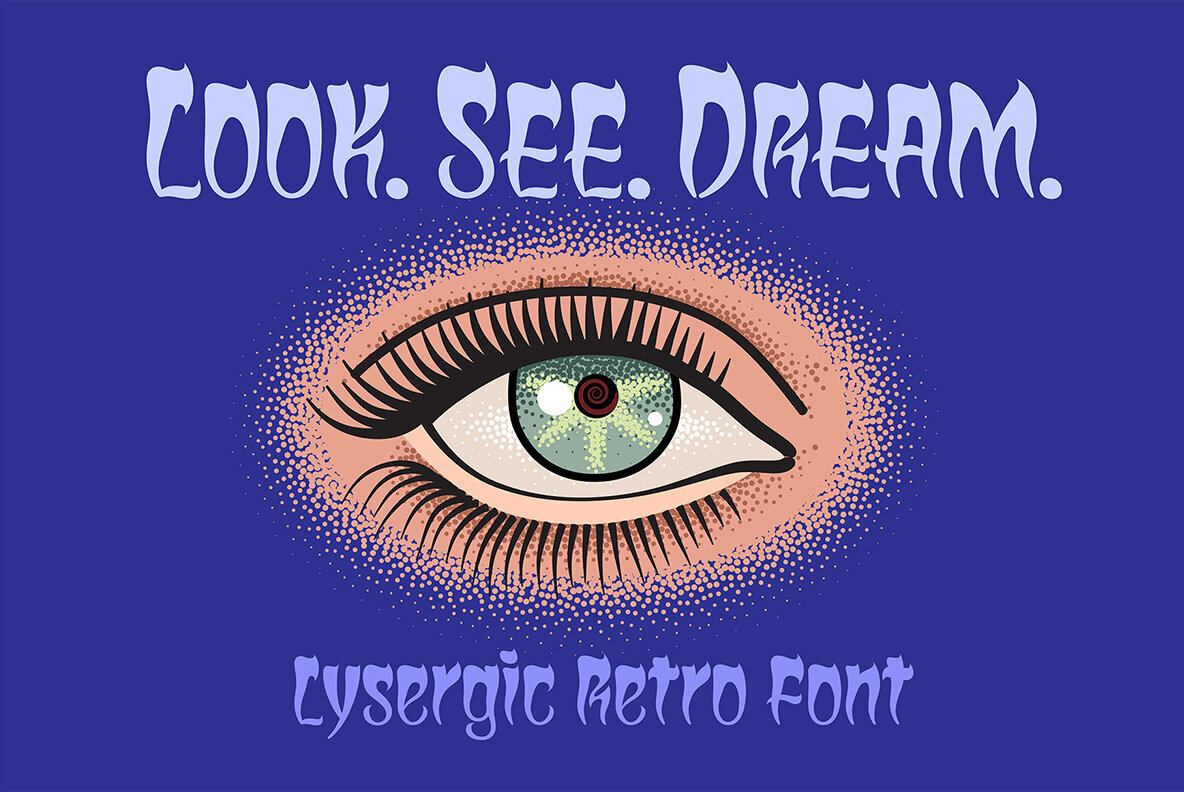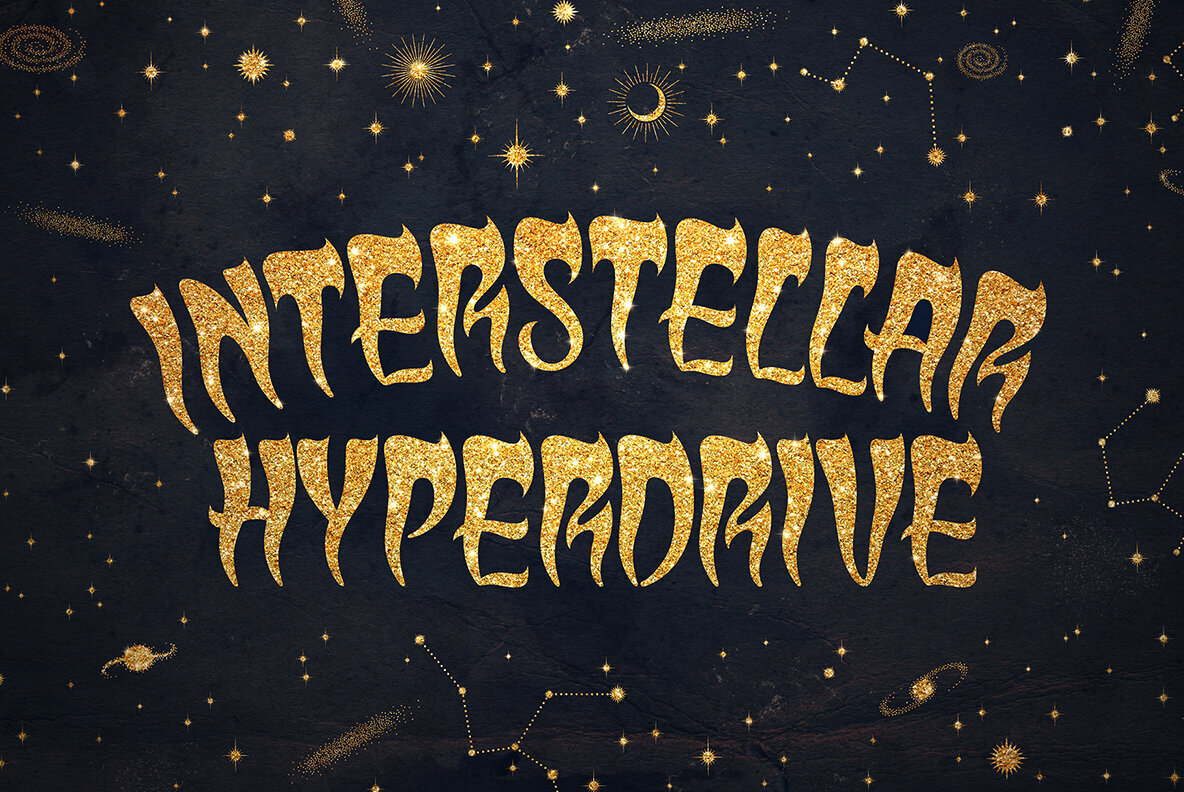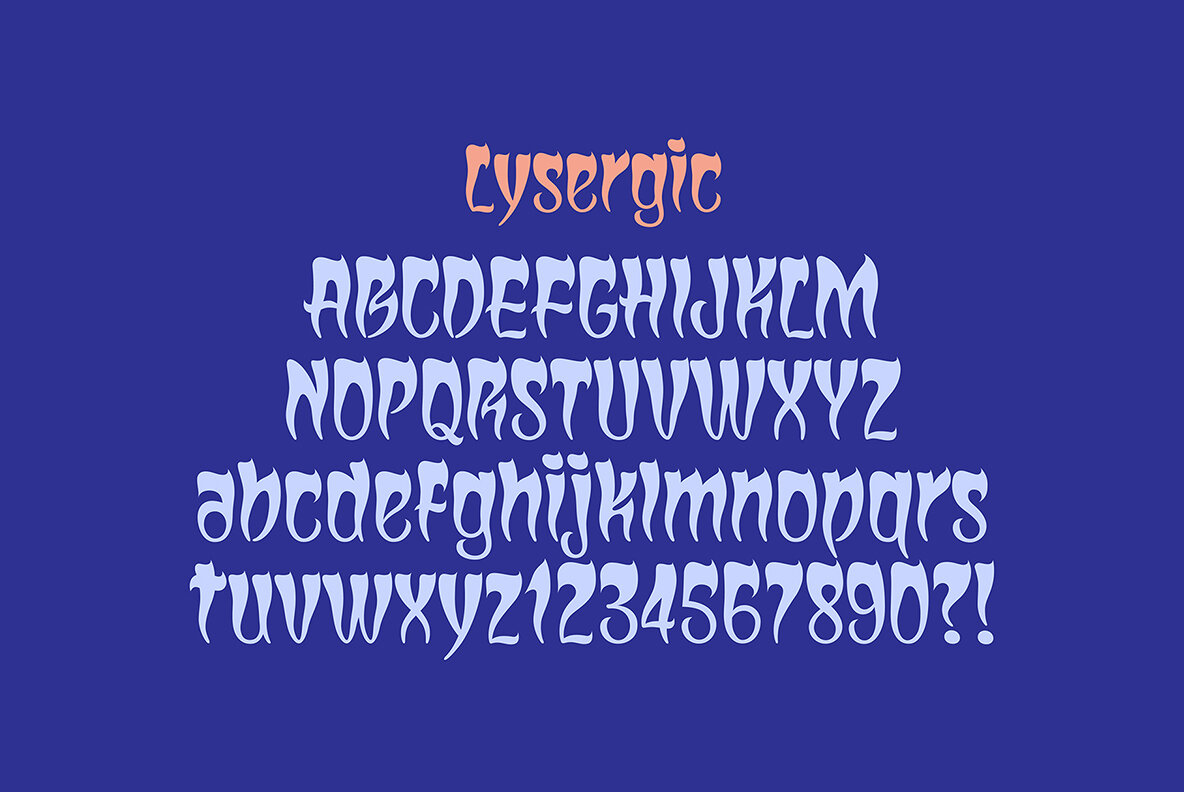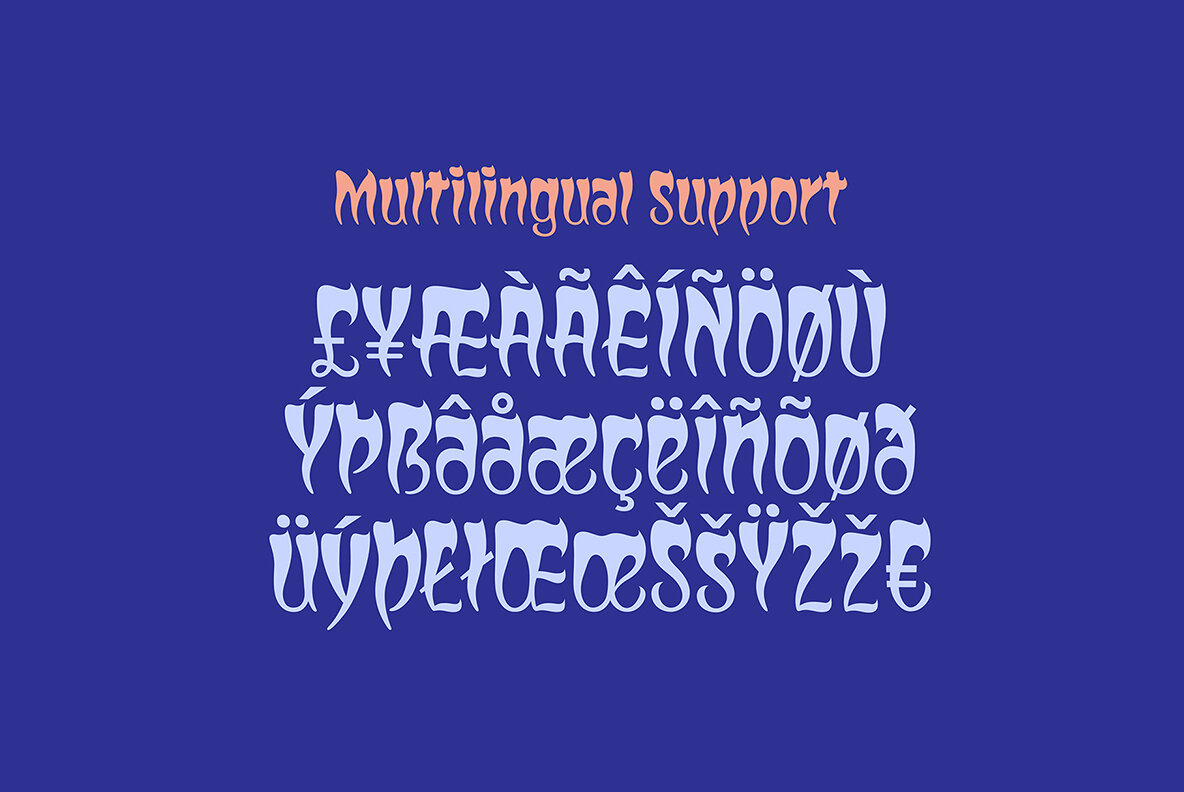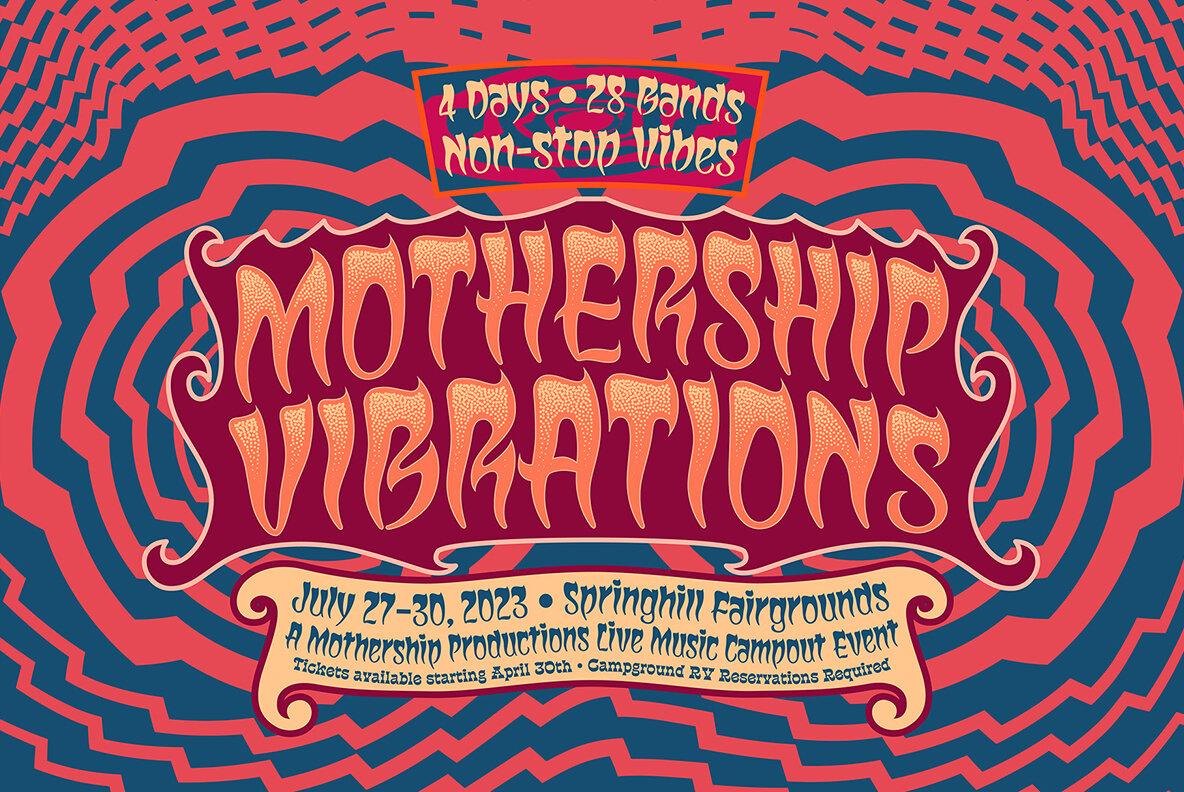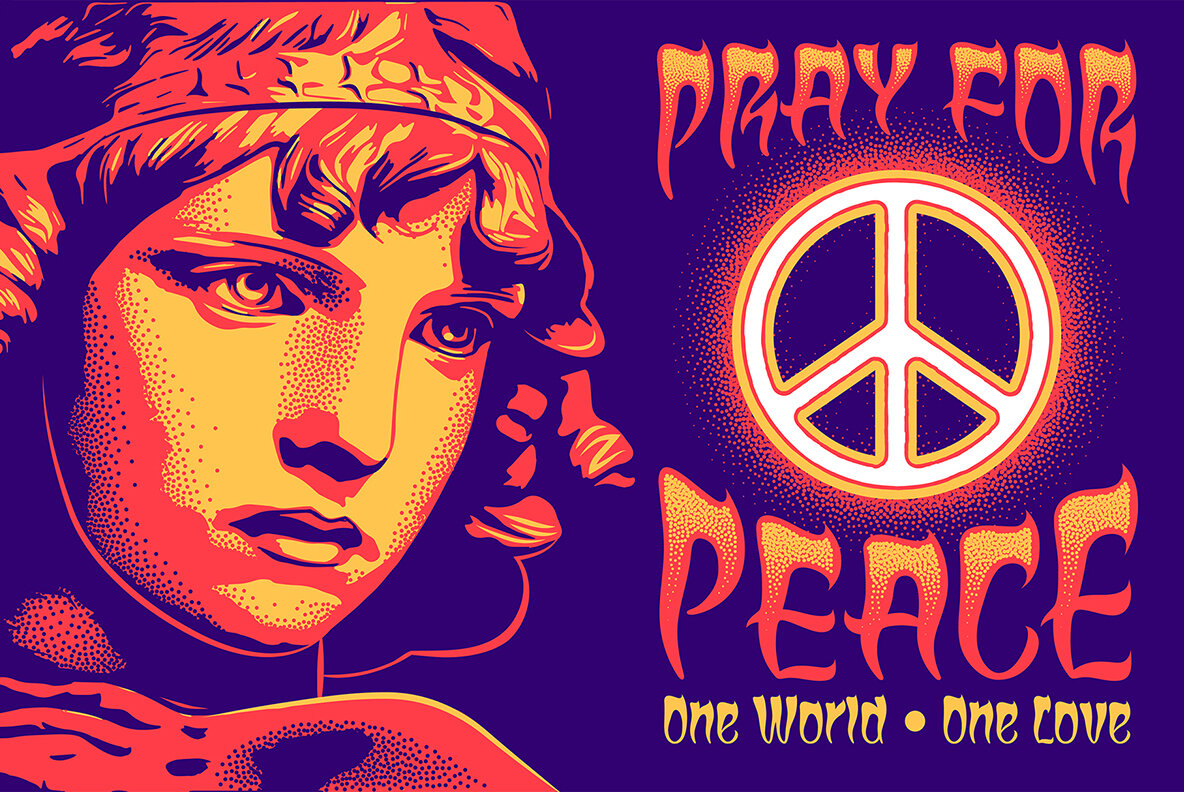
Lysergic Font
Lysergic Regular
Set your time machine to 1969, and fire up your grooviest designs! Lysergic is a smoky, swirly, super-psychedelic font that positively drips with 1960s vibes. This font is a tribute to the work of San Francisco artist Rick Griffin, famous for his psychedelic posters, creative lettering ideas, and especially his Grateful Dead album cover art. It’s great for album graphics, concert posters, and retro apparel. Capturing a true sense of time and place, firmly placed in that bygone era of the city by the bay, Lysergic will truly transport your designs.
Mott Jordan studied studio art and design at U.C. Santa Cruz, and was a self-employed sign painter and later a full-time graphic artist at a local weekly. His type design career began in earnest under Ilene Strizver at International Typographic Corporation in the mid-1990s, releasing two typefaces (ITC Verkehr...